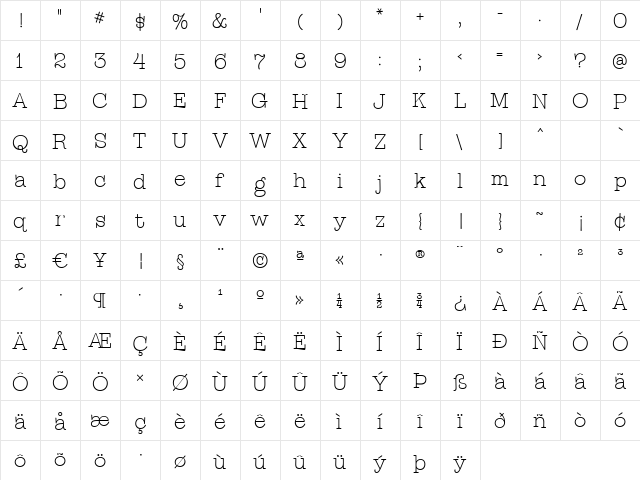
Shag-Mystery Regular
| Foundry | House Industries |
| Designer | Ken Barber & Christian Schwartz |
Design Context for Shag-Mystery Typeface
Shag-Mystery is a composed and adaptable typeface that performs quietly and consistently across a wide range of design contexts.